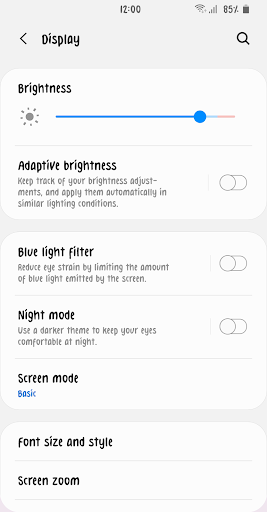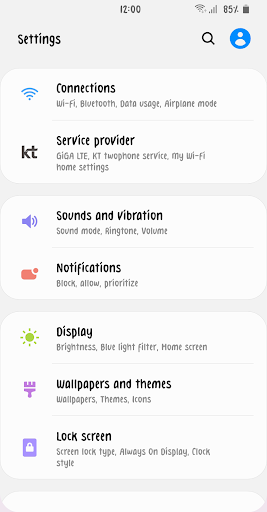
BST PerfectDay
This typeface represents my happiness with my dog as a special day under the theme of shiny daily life. The neat handwriting that would suit the illustration added sensibility. ♨ has a dog and ♭ has a shiny image.